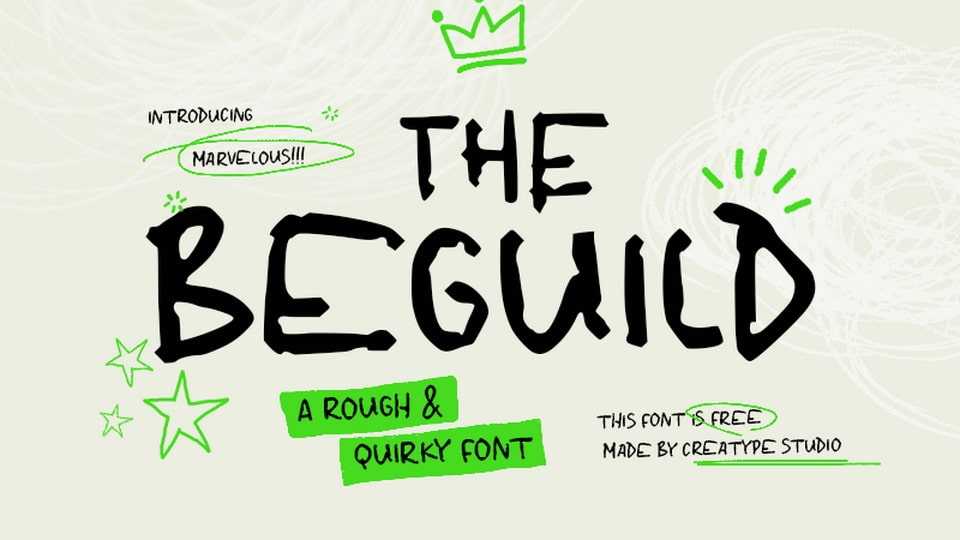
Download Beguild font, a rough and whimsical hand-drawn typeface that exudes rebellious charm and offbeat energy with its imperfect strokes and raw textures.